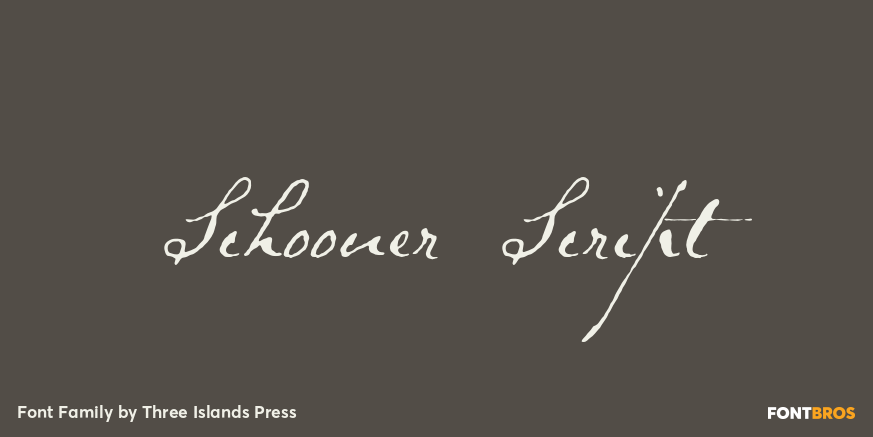
Schooner Script
About Schooner Script
I happened to mention to the proprietor of an antique barn near here that I\’d be interested in any old typewriters she happened to come across. A conversation ensued, the proprietor withdrew into a back room, and she re-emerged with an old handwritten…